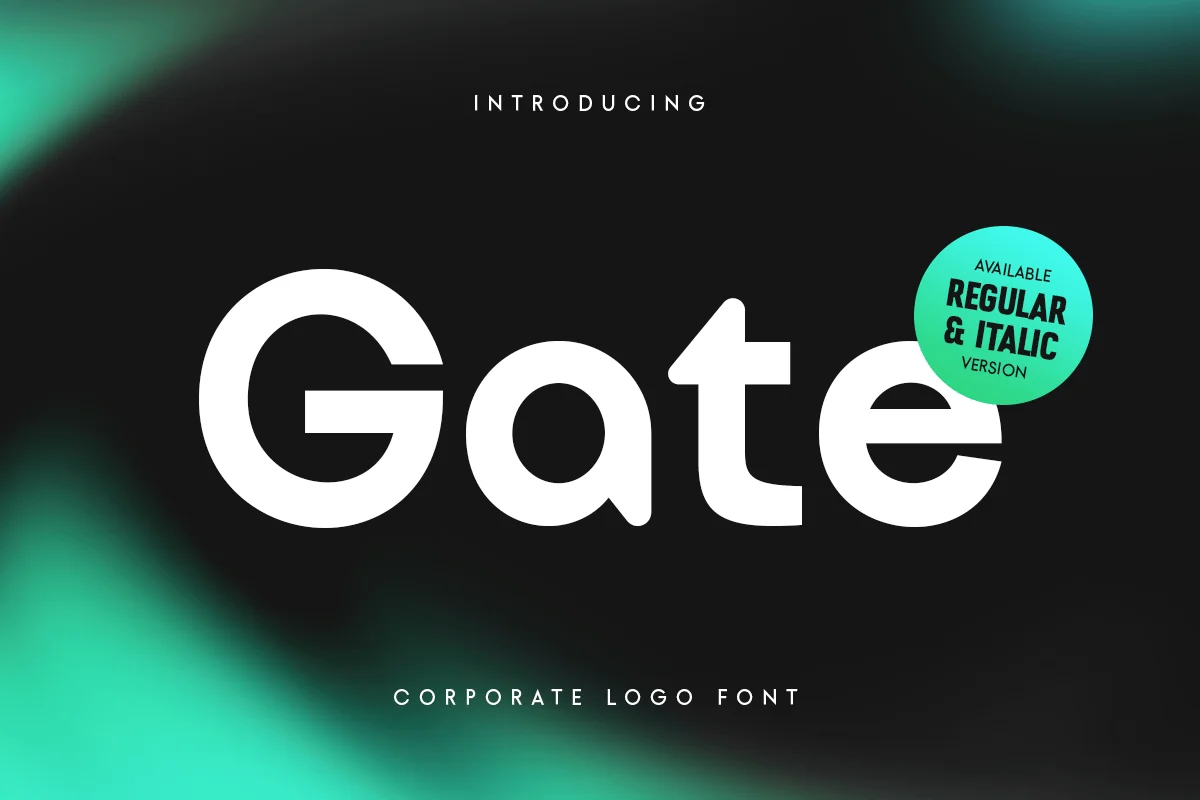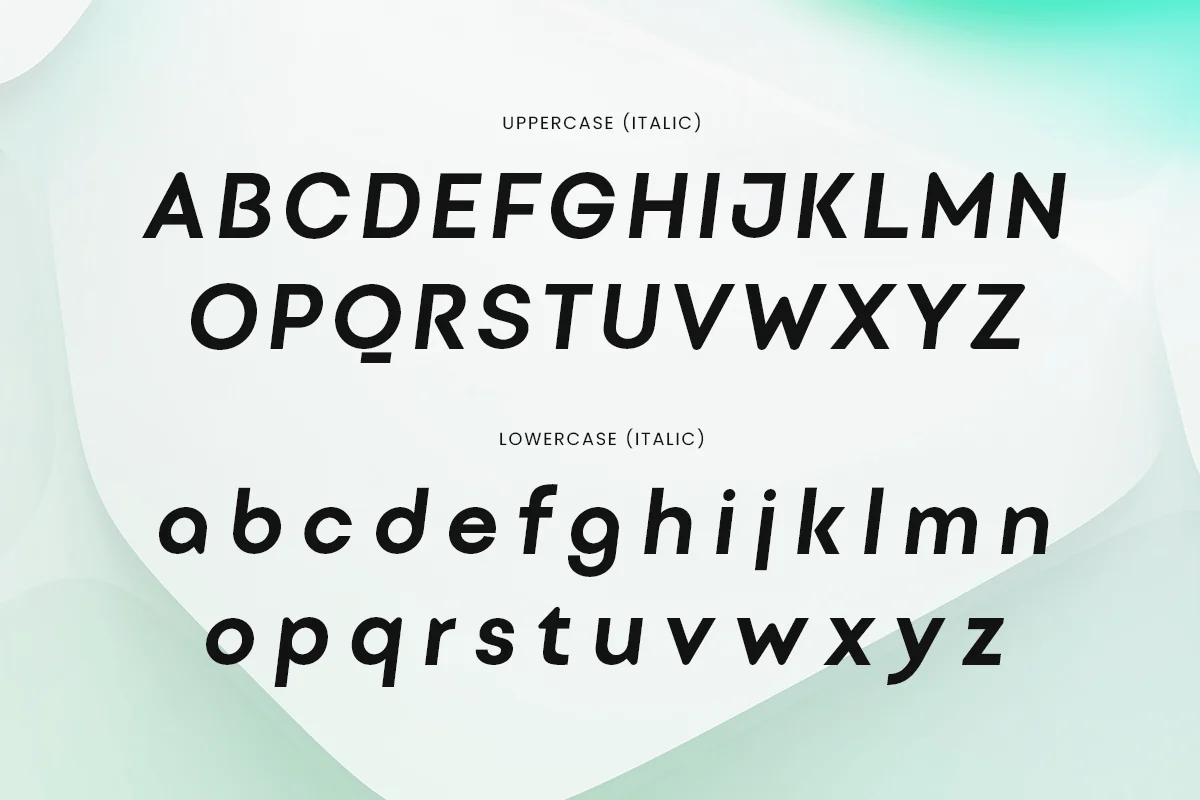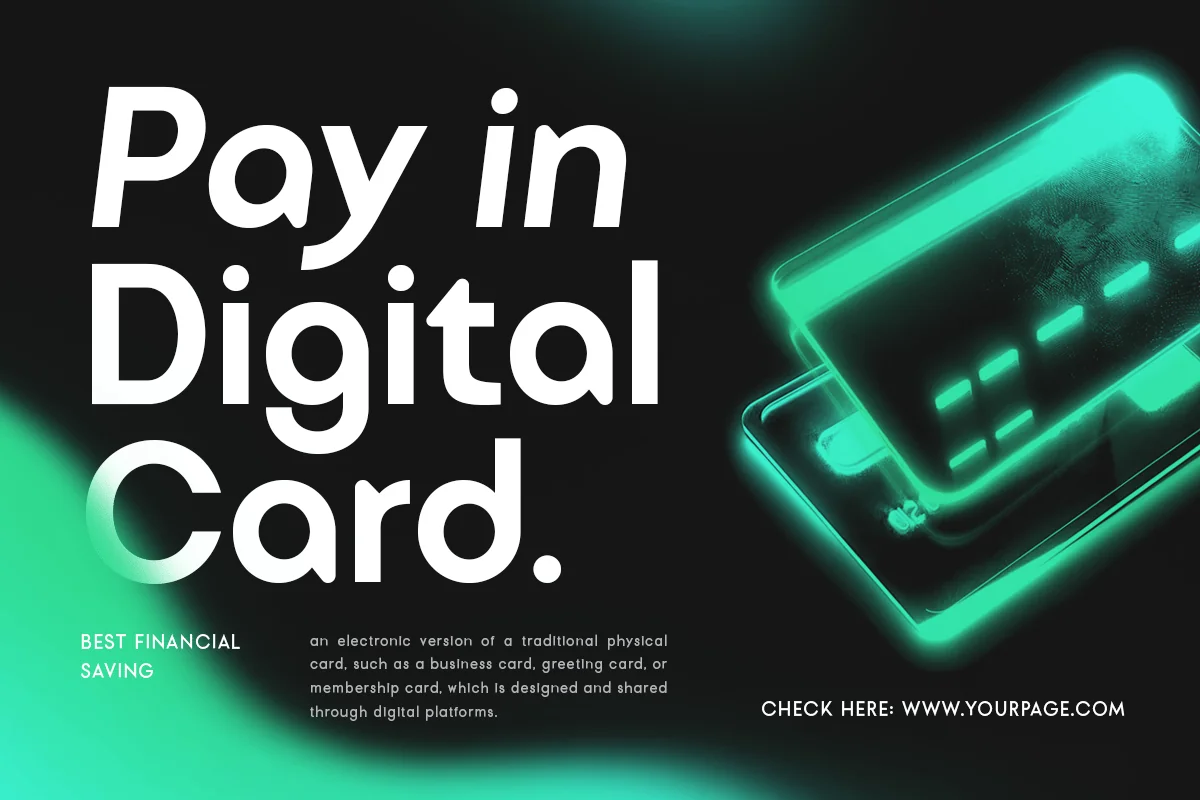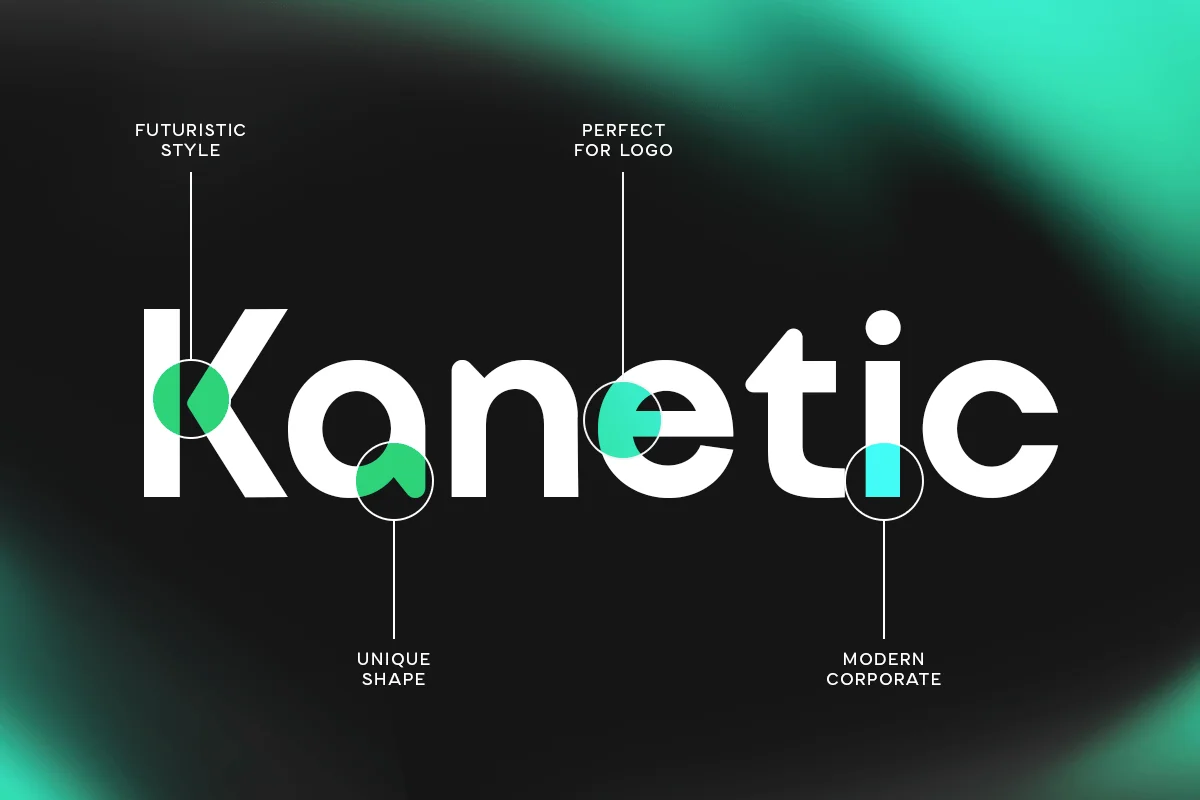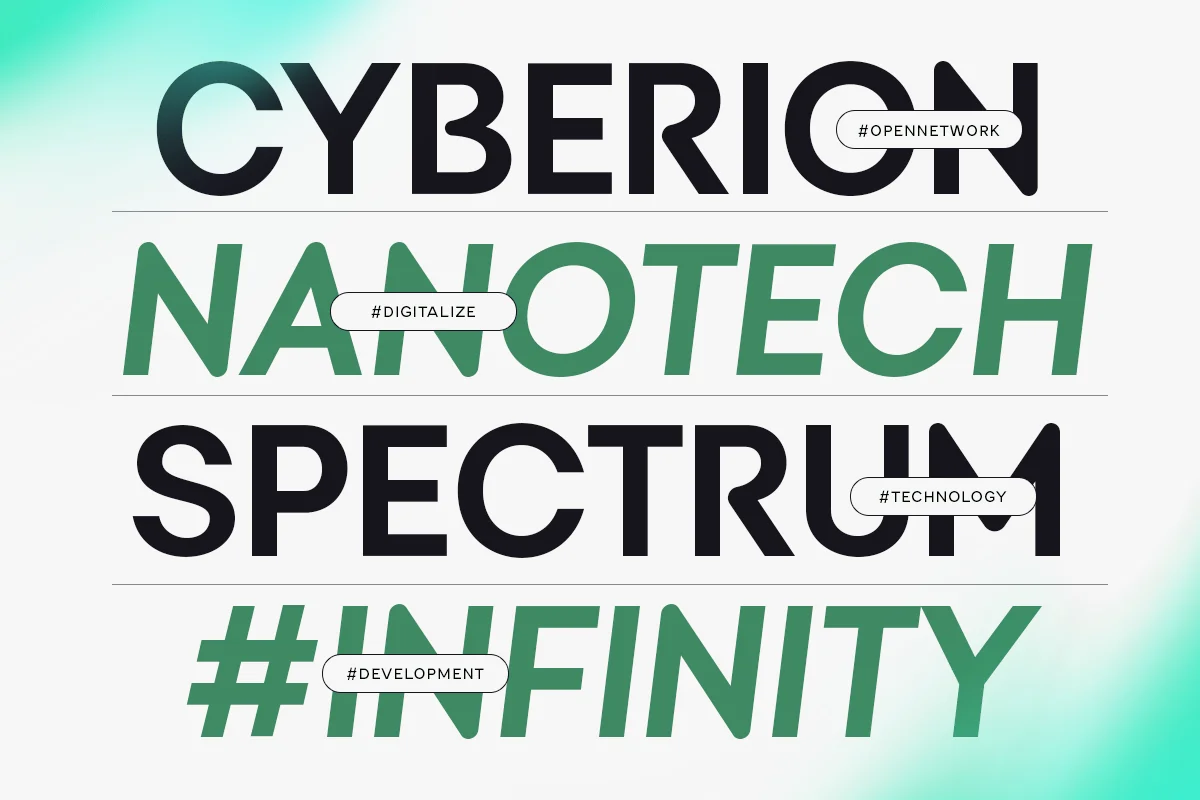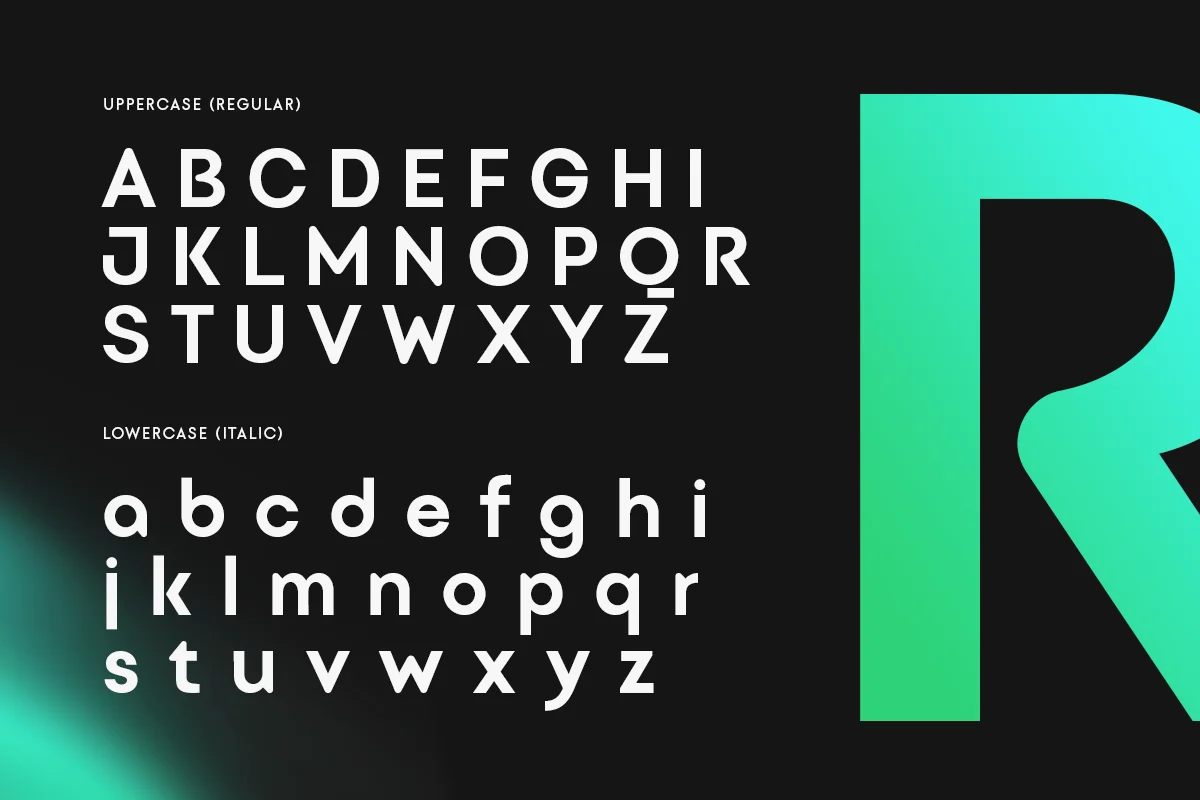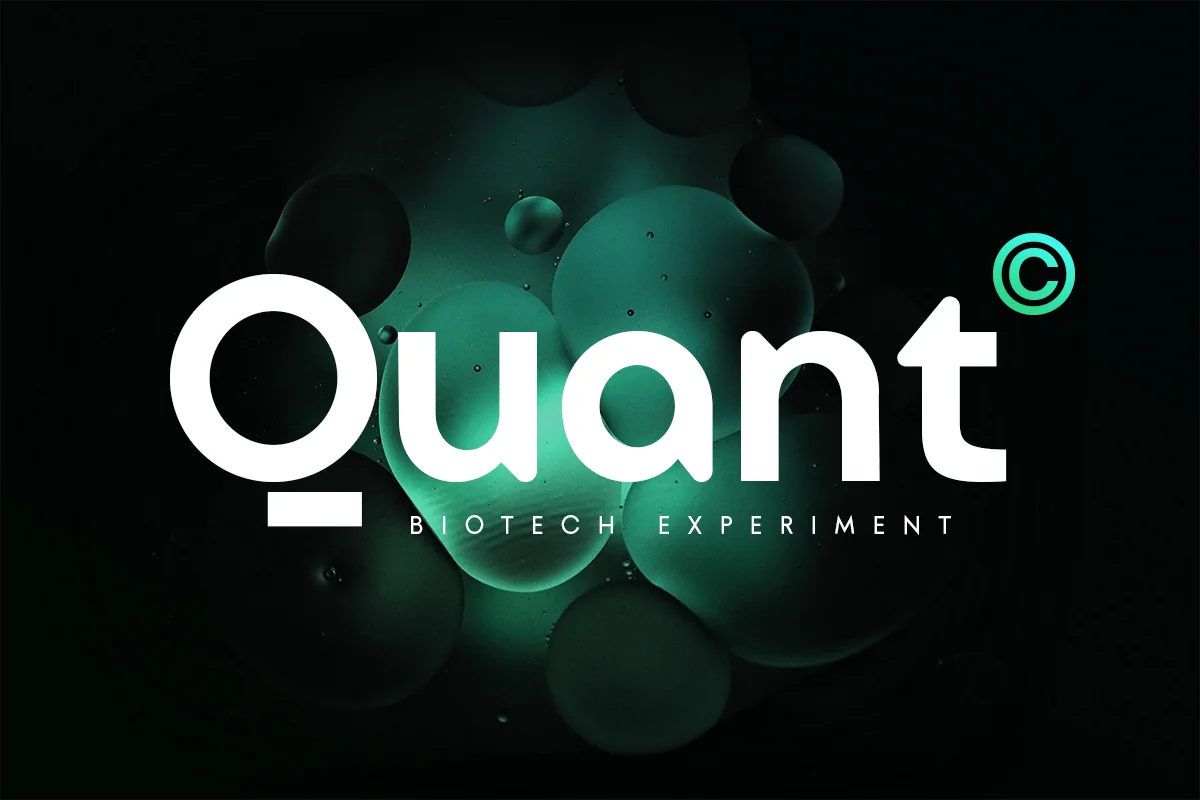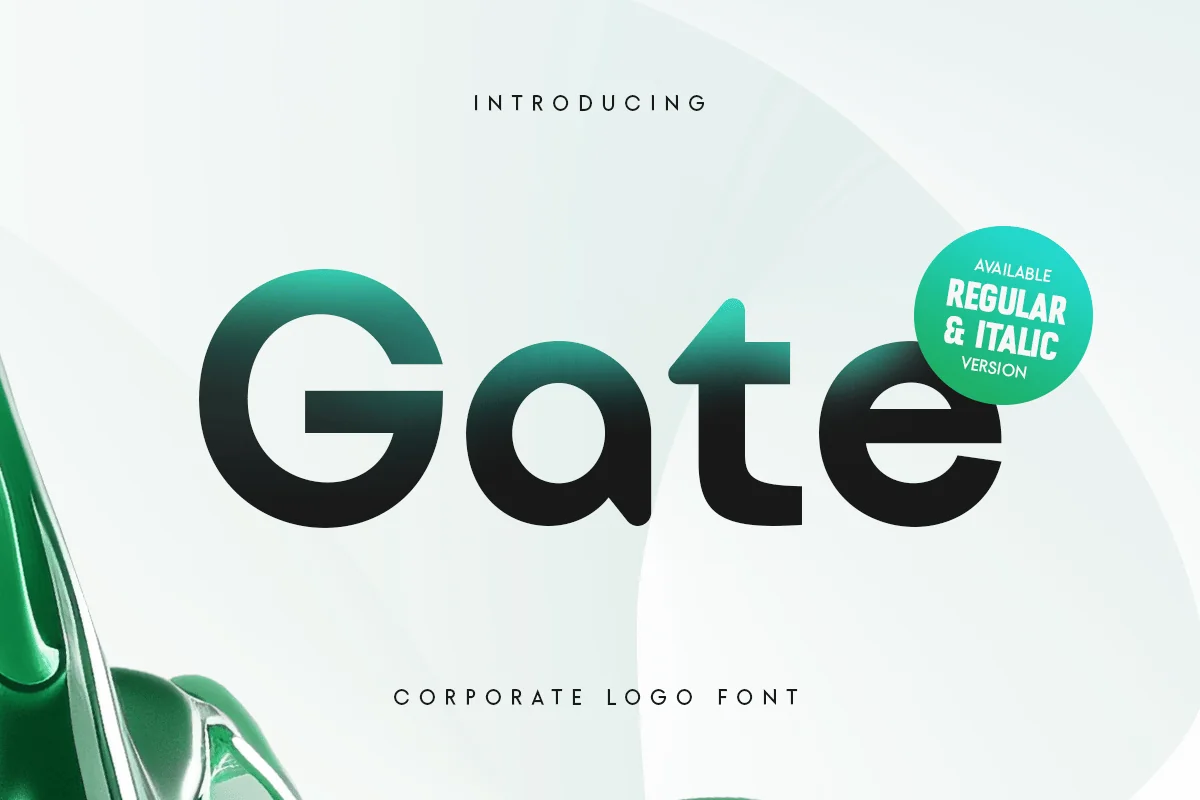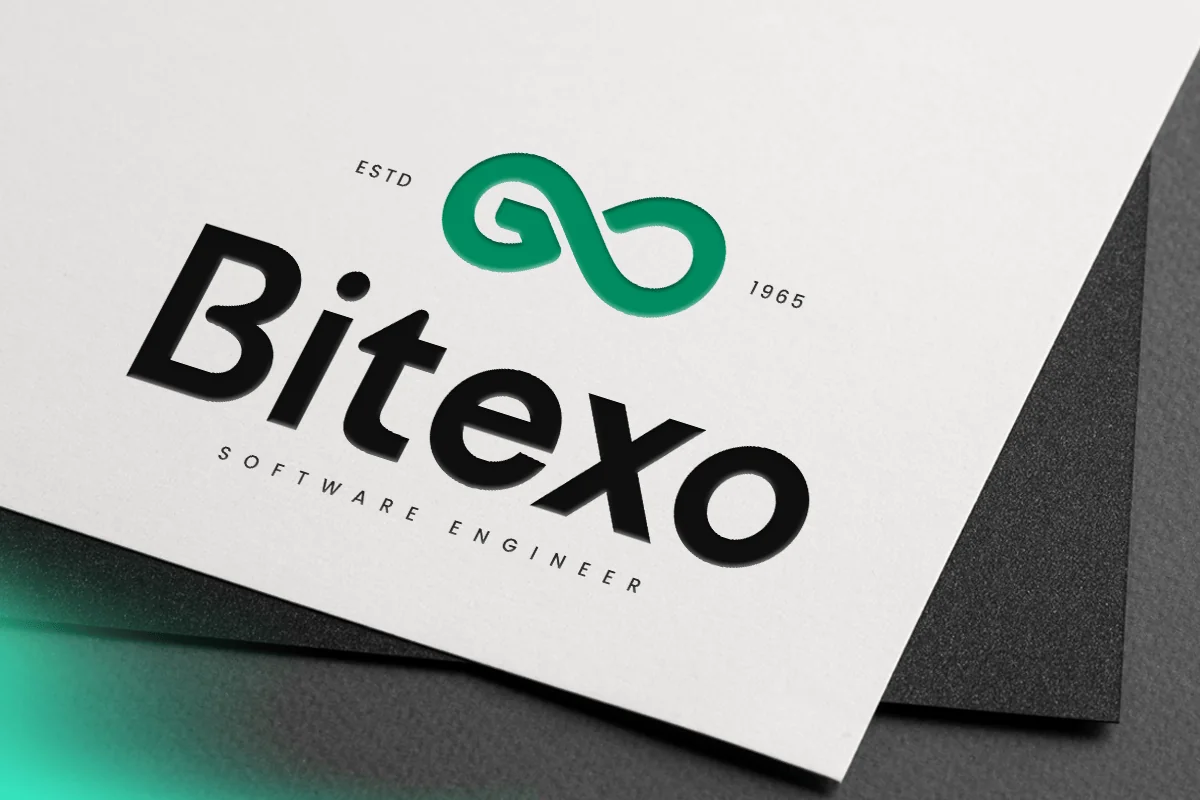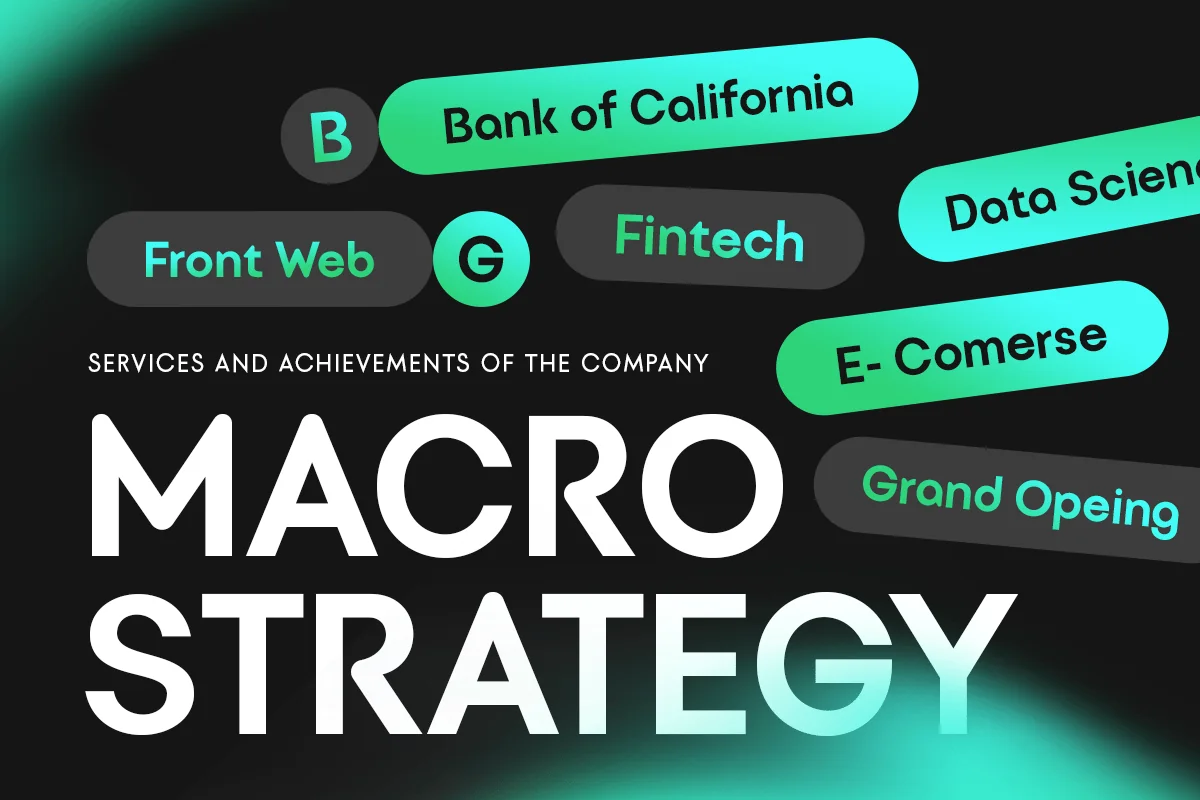
Gate – Corporate logo Font
Gate is a modern corporate logo font designed to bring a sleek and professional look to your business branding. Its clean lines and minimalist design make it ideal for companies looking to project a polished and sophisticated image. Gate ensures that your logo communicates reliability, trustworthiness, and professionalism in a simple, yet powerful way.
Perfect for corporate businesses, tech firms, or any brand that values clarity and straightforward design, Gate’s timeless style makes it versatile for a range of projects. Its elegant structure conveys authority without being overly complex, ensuring your brand stands out in a refined, professional manner.
Gate also comes with alternate characters and a variety of OpenType features, giving you creative control and flexibility to customize your design. Whether used in print or digital, Gate’s adaptability makes it a reliable choice for corporate identity and branding.
- Corporate Characters in Regular & Italic Version